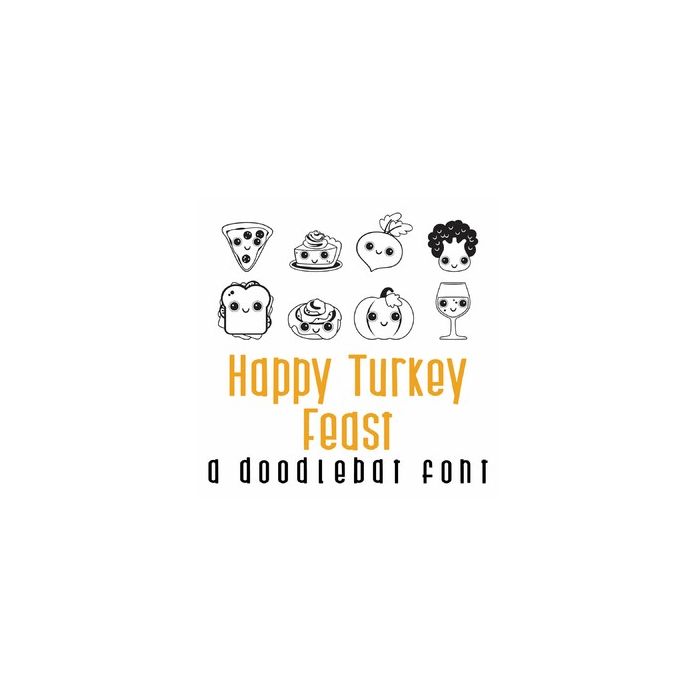
Happy Turkey Feast Doodlebat Font
This fun doodlebat font features 26 kawaii style foods. Perfect for cards, gifts, decor, crafts, scrap book pages, planner stickers and more!